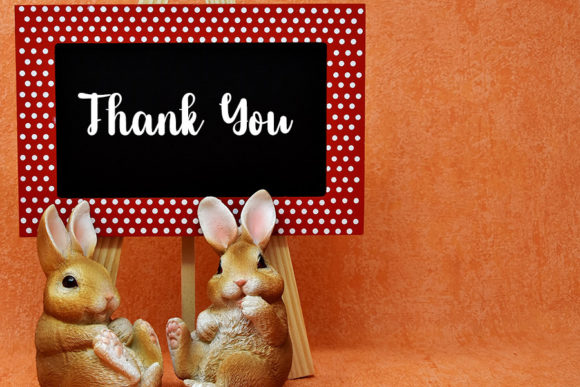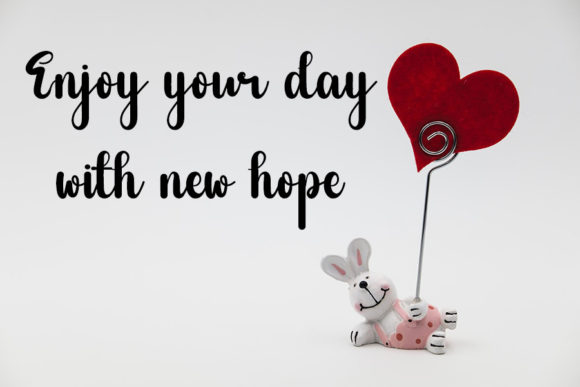
Easter Sunday Font
db-ku.com - Script & Handwritten -- Easter Sunday is a stylish handwritten font with a contemporary atmosphere and impeccable form, inspired by a timeless classic calligraphy. Balanced and varied, this font was designed to enhance the beauty of your projects.